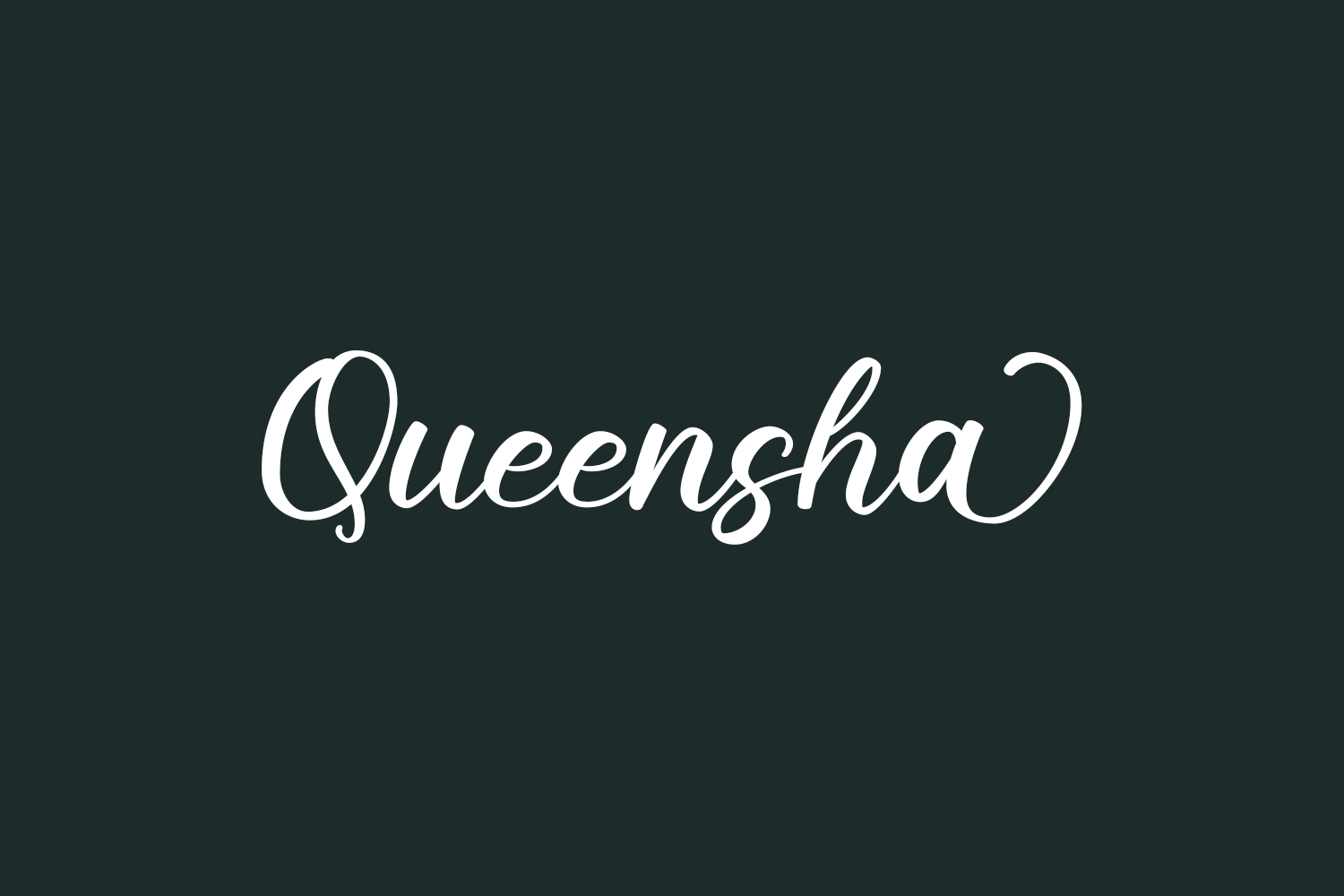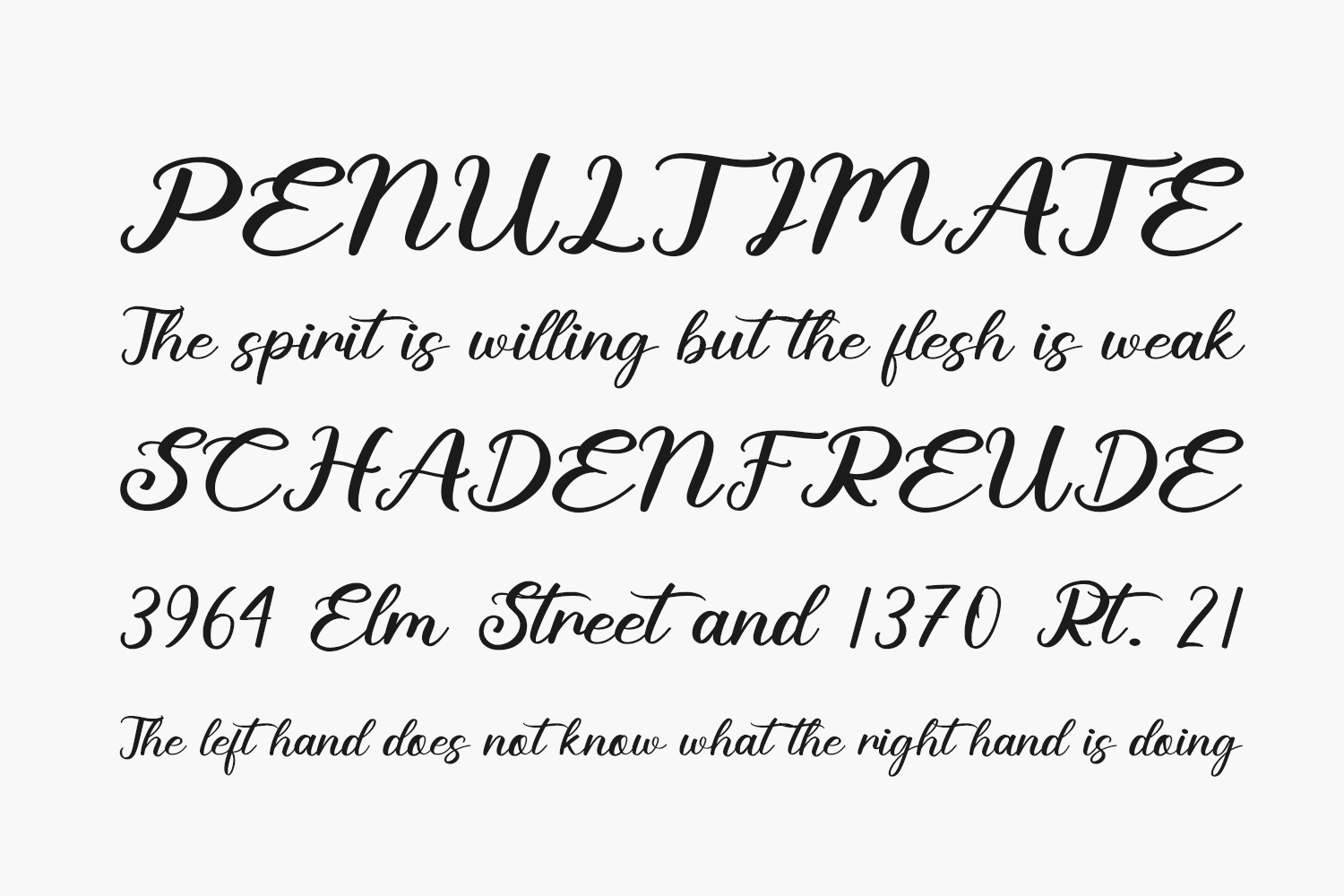
Introducing Queensha Free Font, a script font that exudes style and unmatched elegance. This font is a perfect choice for enhancing the beauty of wedding invitations, thank you cards, quotes, greeting cards, logos, business cards, and any other design in need of a sophisticated handwritten touch. With its graceful strokes and timeless appeal, Queensha adds a touch of class to your projects, creating a lasting impression on your audience. Elevate your designs with the undeniable charm of Queensha and witness the transformation of your creations into works of art. Queensha Free Font is free for personal use only. Please purchase the full version for commercial use.